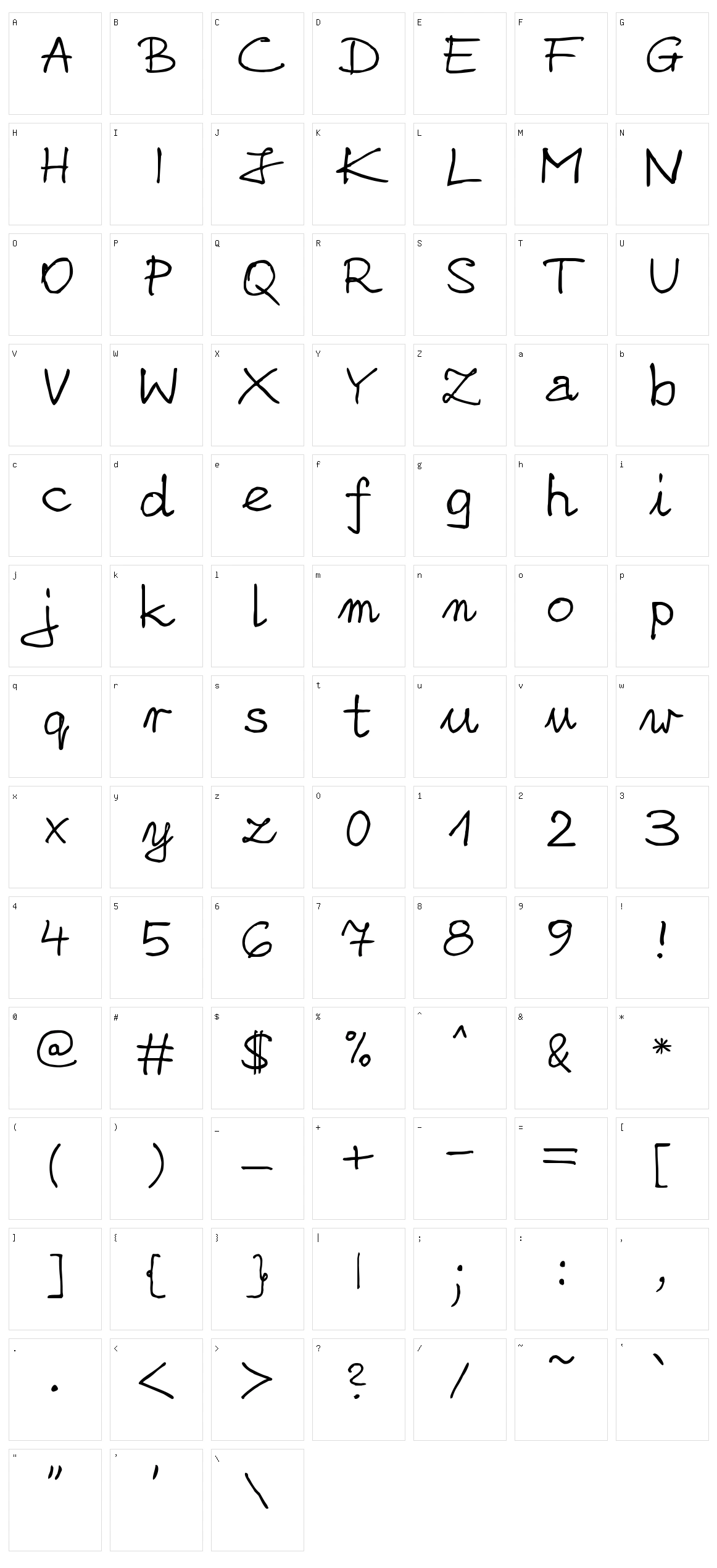
The free font zai Nicolas Sloppy Pen is carefully designed by Tomasz Skowroński, showcasing a thoughtful balance of creativity and usability and falls under the Script font style. When you download the ZIP file, it contains only 319.64 KB of font files, making it lightweight and quick to download. Please review the license details below to understand permitted usage and distribution rights. If license information is not available, we recommend using this font for personal projects only or contacting the author directly for commercial usage permissions.